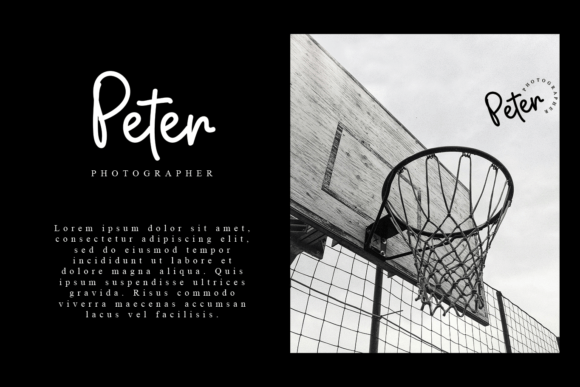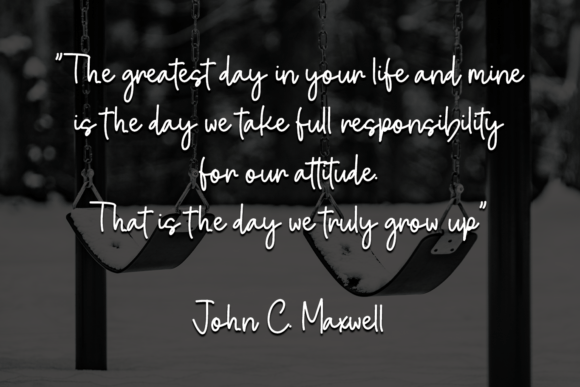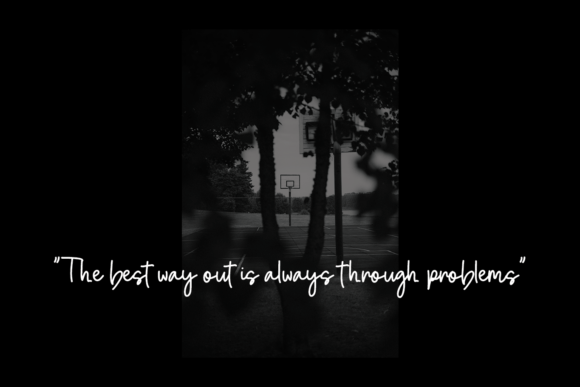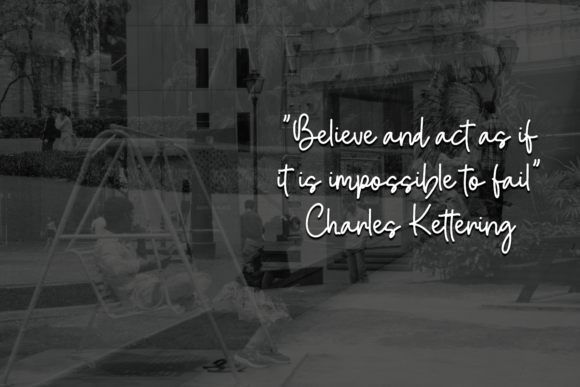
Introduction to Kinder Garten Font
Have you ever stumbled upon a font that makes your creative heart skip a beat? For me, that moment came when I discovered the Kinder Garten Font. Its flowing and elegant handwriting style instantly captured my attention, and I couldn’t wait to dive in and explore its endless possibilities. Whether you’re planning a wedding, working on a design project, or simply looking for a unique way to express yourself, the Kinder Garten Font is the perfect design resource to elevate your creations.
This high-quality font is not only visually stunning but also incredibly versatile. From beautiful wedding invitations to eye-catching social media posts, the Kinder Garten Font is the perfect choice for any creative project. With its transparent background and free download option, you can easily incorporate it into your designs without any hassle. As a designer, I can attest to the value of having access to high-quality fonts like the Kinder Garten Font, which can make all the difference in bringing your vision to life.
Key Features of Kinder Garten Font
- High-quality design resource ideal for creative projects, such as children’s books, educational materials, and more.
- Transparent background, making it easy to layer over images and other design elements.
- Designed with a playful and whimsical feel, perfect for adding a touch of childhood magic to your designs.
Honest Review: Kinder Garten Font
I recently stumbled upon the Kinder Garten Font, and I must say it’s a great addition to my design resource collection. The font is perfect for creating a playful and childlike atmosphere in my projects.
What works well for the Kinder Garten Font is its high quality and versatility. It comes in a range of styles, from bold to cursive, which makes it ideal for various creative projects. I also appreciate that it has a transparent background, making it easy to layer and manipulate in my designs.
- ✨ High-quality and versatile font styles
- ✨ Transparent background for easy layering and manipulation
However, I do have a few reservations about the font. It can be a bit difficult to read in smaller font sizes, especially for text-heavy content. Additionally, the font may not be suitable for formal or professional projects.
Overall, I’m impressed with the Kinder Garten Font and would definitely recommend it for creative projects that require a playful and whimsical touch.
Tips for Getting the Most Out of Kinder Garten Font
To maximize the impact of the Kinder Garten Font, use it sparingly and in combination with other design elements. Experiment with different font sizes and styles to create a visually appealing design. Additionally, consider using the font’s transparent background feature to create a cohesive look.
The Kinder Garten Font is ideal for a variety of creative projects, including logos, posters, and social media graphics. Its high-quality design and transparent background make it an excellent choice for designers working on a range of projects.